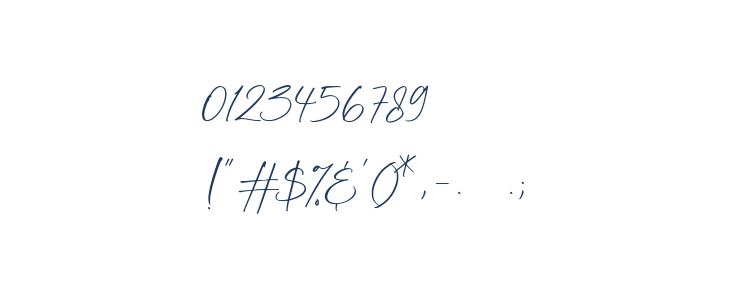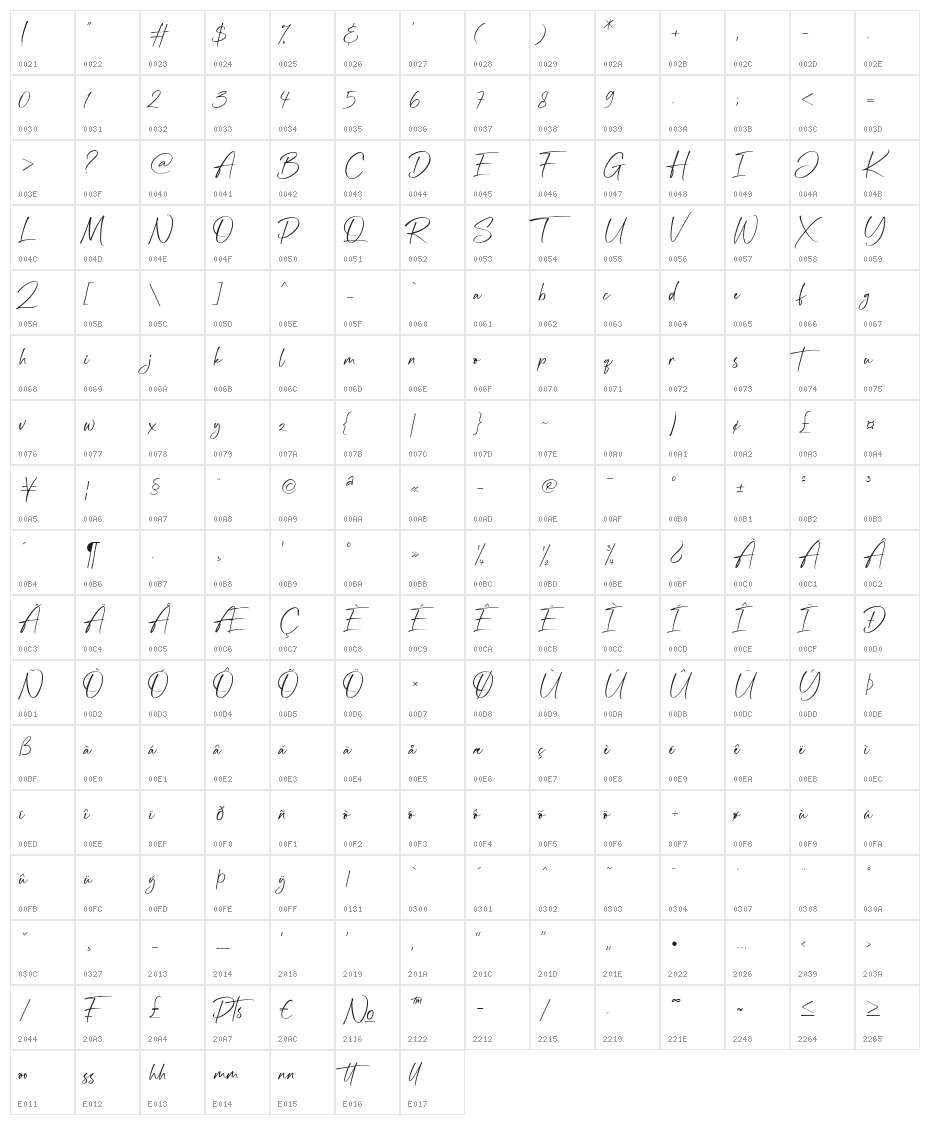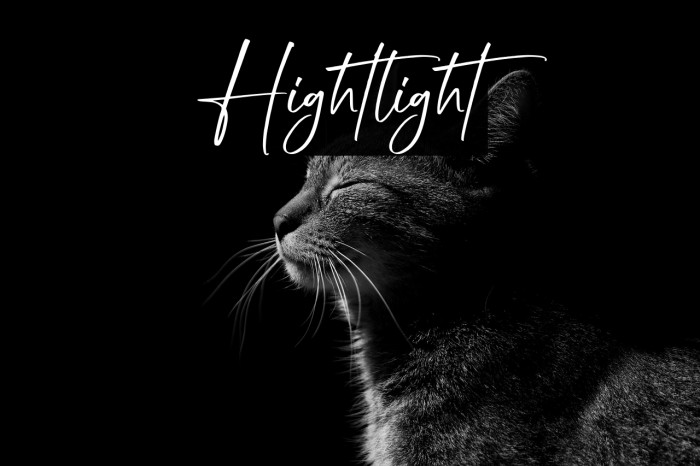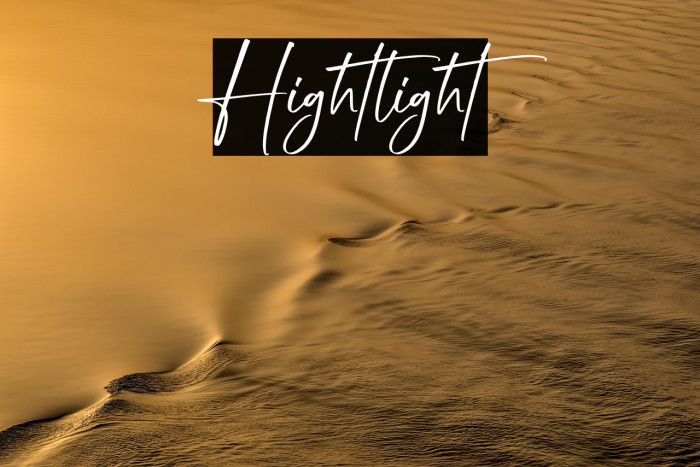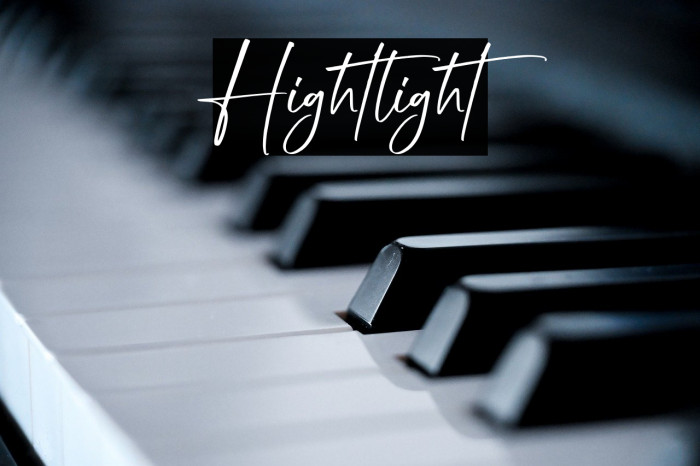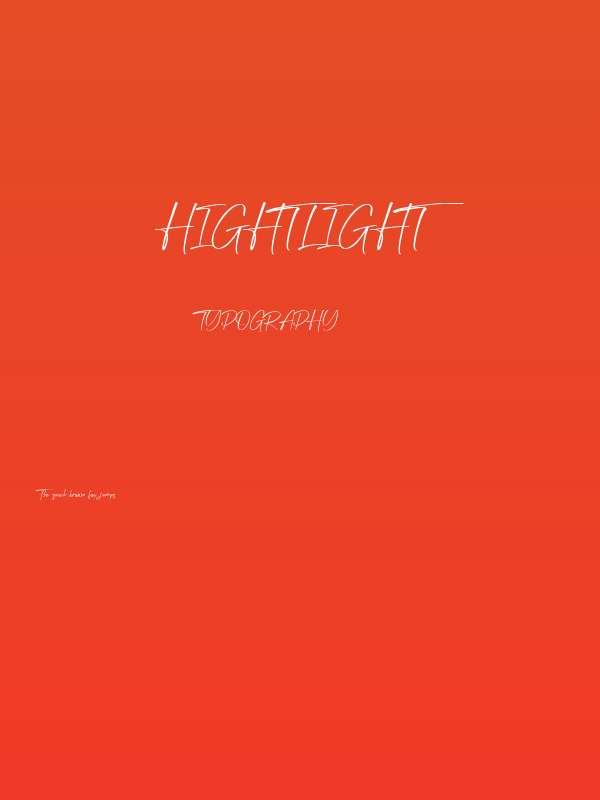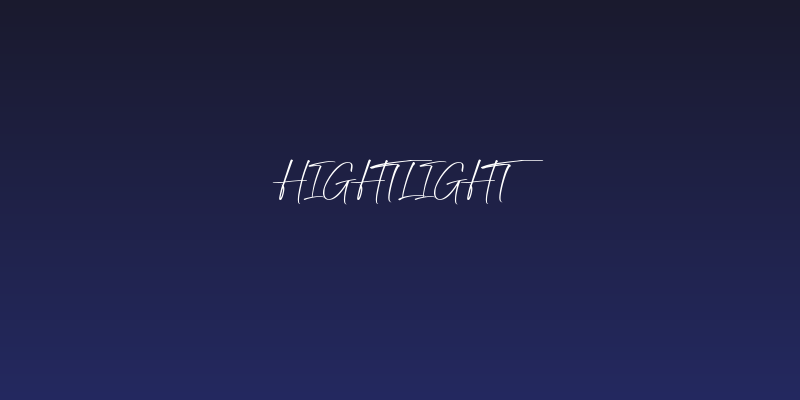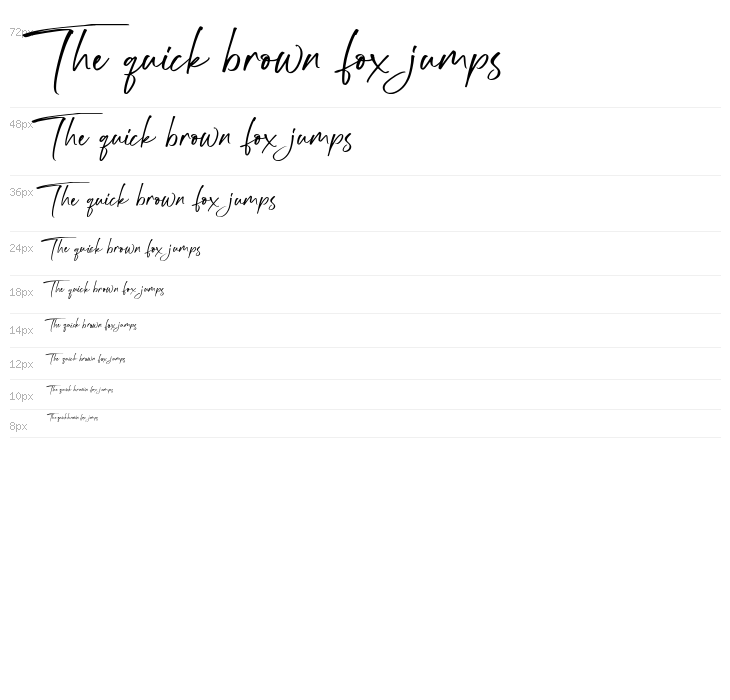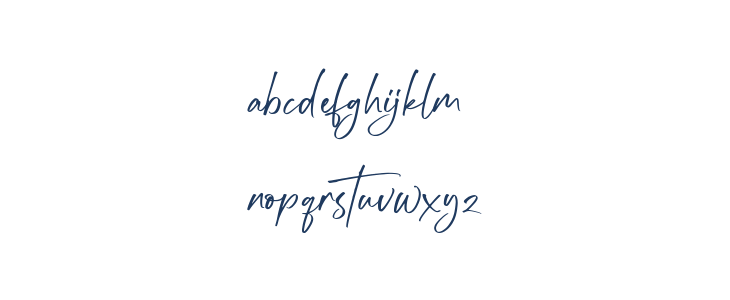
Hightlight Font
Hightlight Description
This font features a flowing, cursive style with elegant, elongated strokes and a handwritten appearance. The uppercase letters are bold and sweeping, with a distinct flair that adds a touch of sophistication. Lowercase letters maintain a consistent flow, enhancing readability while preserving the artistic flair. Numbers and special characters are crafted with the same attention to detail, ensuring a cohesive look across all elements. The overall design exudes a sense of elegance and creativity, making it suitable for projects that require a personal touch.
| Overall Style | Elegant, Artistic |
| Use Case | Logos, Invitations, Personal Branding |
| Proposed Projects | Ideal for wedding invitations, greeting cards, personal branding, and artistic projects. |